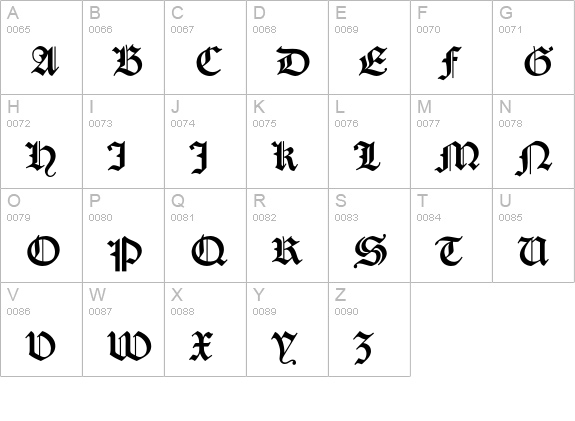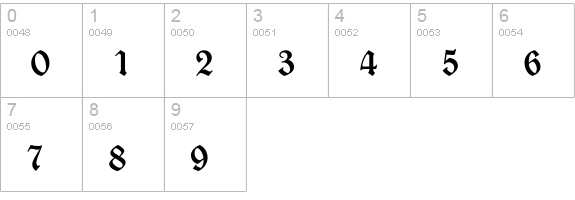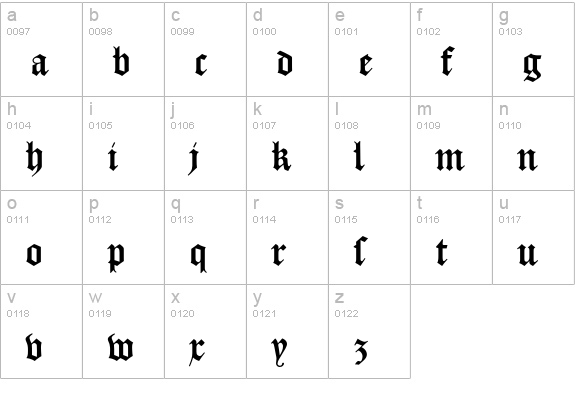
Caslon Gotisch Font Details
Caslon Gotisch is a stunning display font that exudes elegance and sophistication. With its intricate gothic-inspired design and delicate serifs, this typeface is perfect for adding a touch of old-world charm to your projects. The rich history and timeless appeal of Caslon Gotisch make it a versatile choice for a wide range of applications, from branding to editorial design. What sets Caslon Gotisch apart is its unique blend of classic and contemporary elements, making it a standout choice for those seeking a font with a touch of individuality. Whether you're designing a vintage-inspired poster or crafting a modern logo with a twist, Caslon Gotisch is sure to make a bold statement. And the best part? Caslon Gotisch is available for free download at FontsMarket.com, giving you easy access to this exquisite font for all your creative endeavors. Embrace the beauty and versatility of Caslon Gotisch today and elevate your designs to new heights.